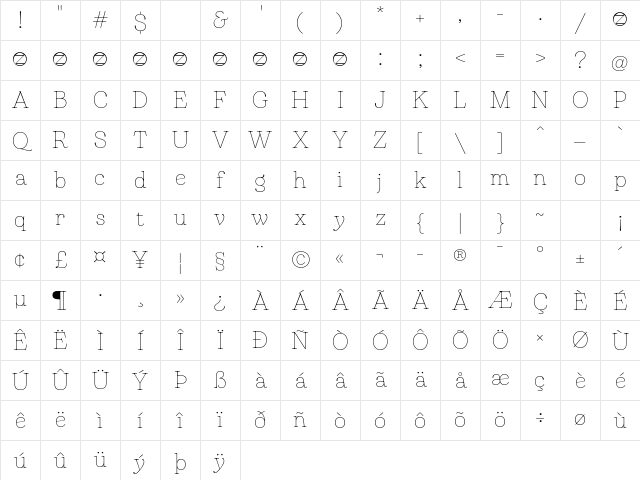
Bogart Trial Thin Free Font
Bogart Trial Thin
Foundry: Zetafonts
Designer: Francesco Canovaro, Andrea Tartarelli
Design Context for Bogart Trial
Bogart Trial is a composed and adaptable typeface that performs quietly and consistently across a wide range of design contexts. Its slender proportions lend an understated elegance to any composition.